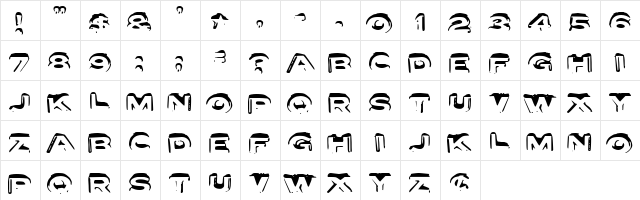
Letter Set A Regular
| Foundry | Larabie Fonts |
Design Context for Letter Set A Typeface
Letter Set A is a composed and adaptable typeface that performs quietly and consistently across a wide range of design contexts.